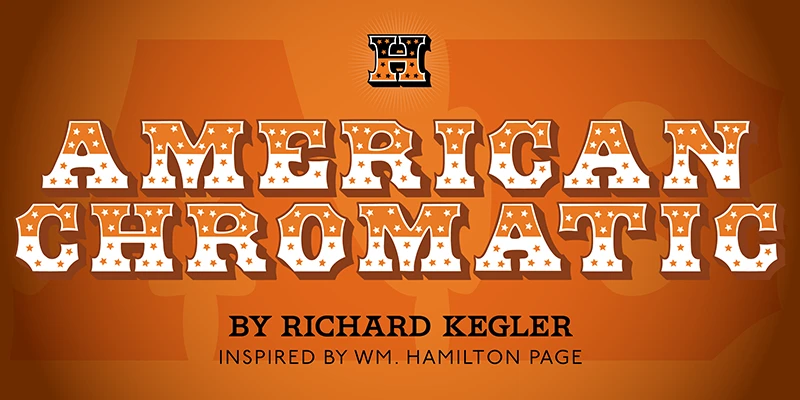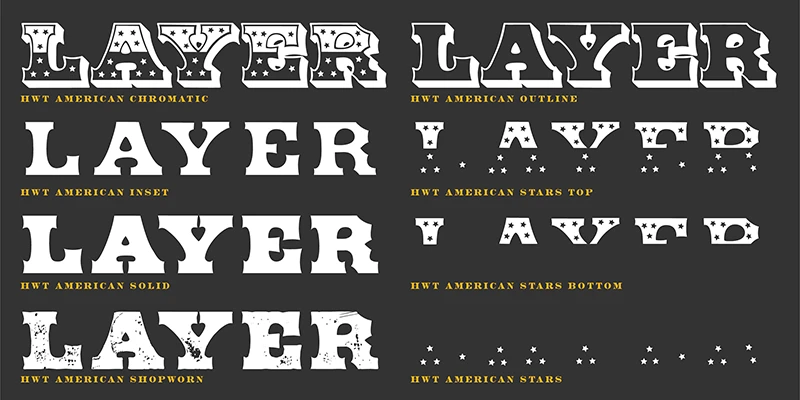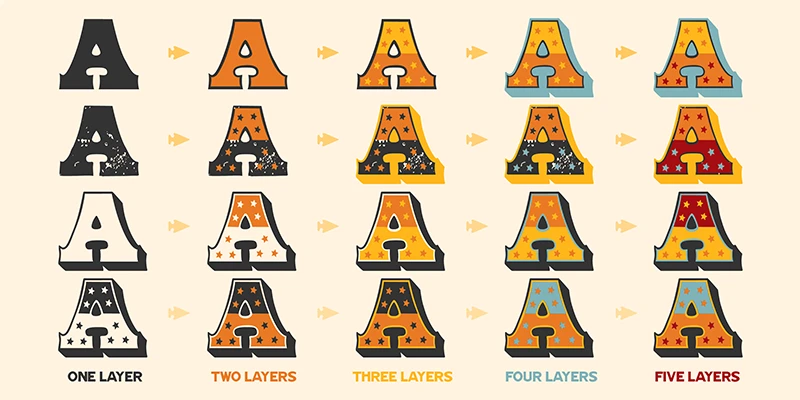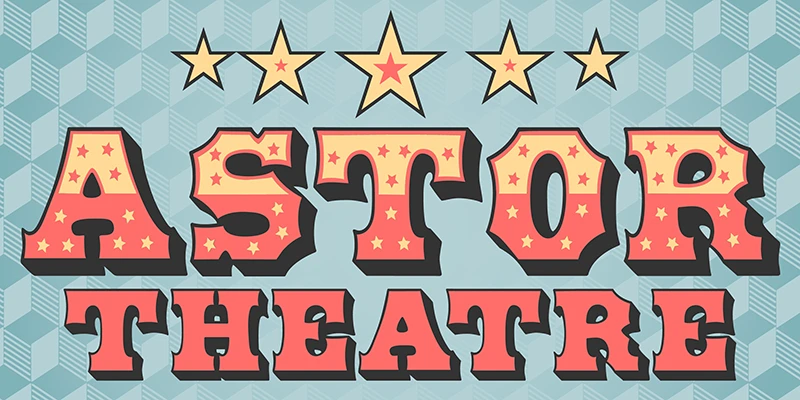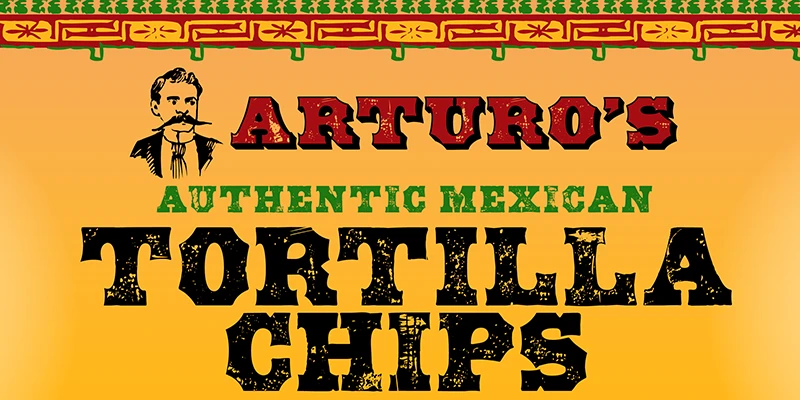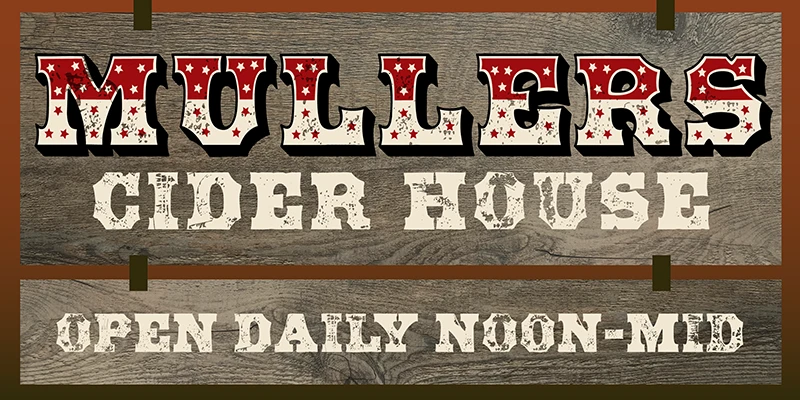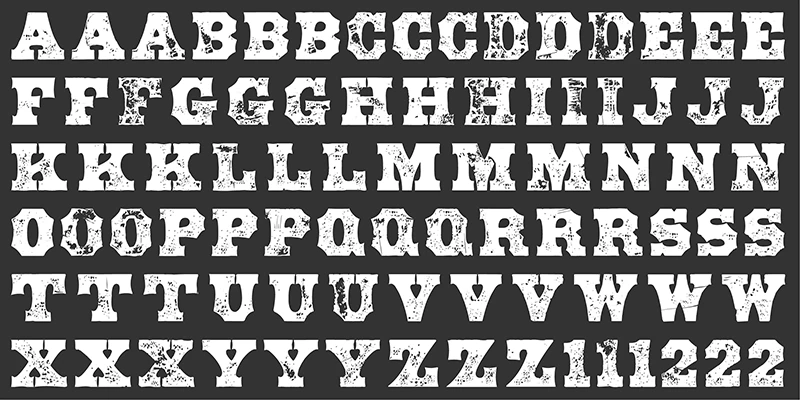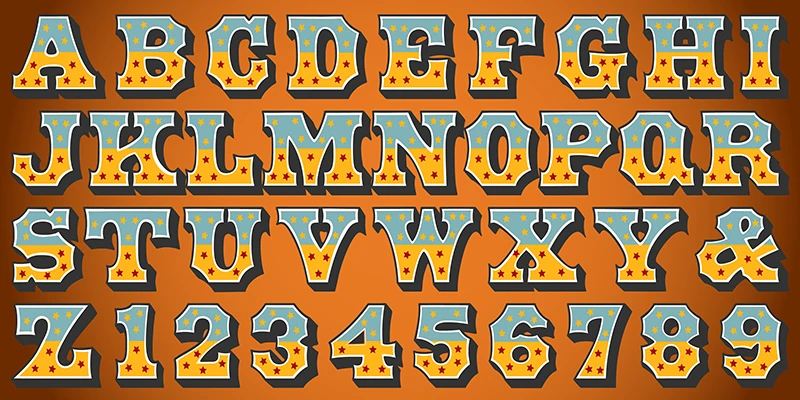
HWT American is a multilayered family. The source material was a 19th-century chromatic family that only included two fonts. This digital version includes eight, and they are designed to be set and arranged, one on top of the other, allowing thousands of imaginable color and pattern combinations. Five of the eight fonts in the set can be used individually as variations of the classic Tuscan style of wood type, defined by its concave stems and serifs.
Designed by William Hamilton Page, Richard Kegler & Terry Wüdenbachs